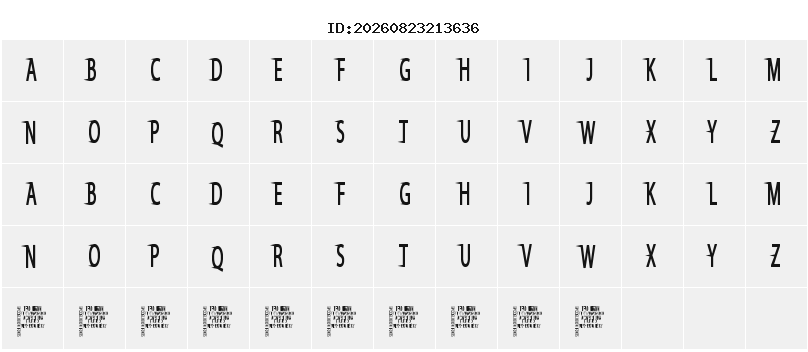
• Font Name: Say Divine
• Full Font Name: Say Divine
• Designer: Tom Kolodziejski
About Say Divine.ttf
Say Divine.ttf is a modern, elegant sans-serif font designed for ultimate readability and visual harmony. Perfect for branding, headlines, web design, and print materials.